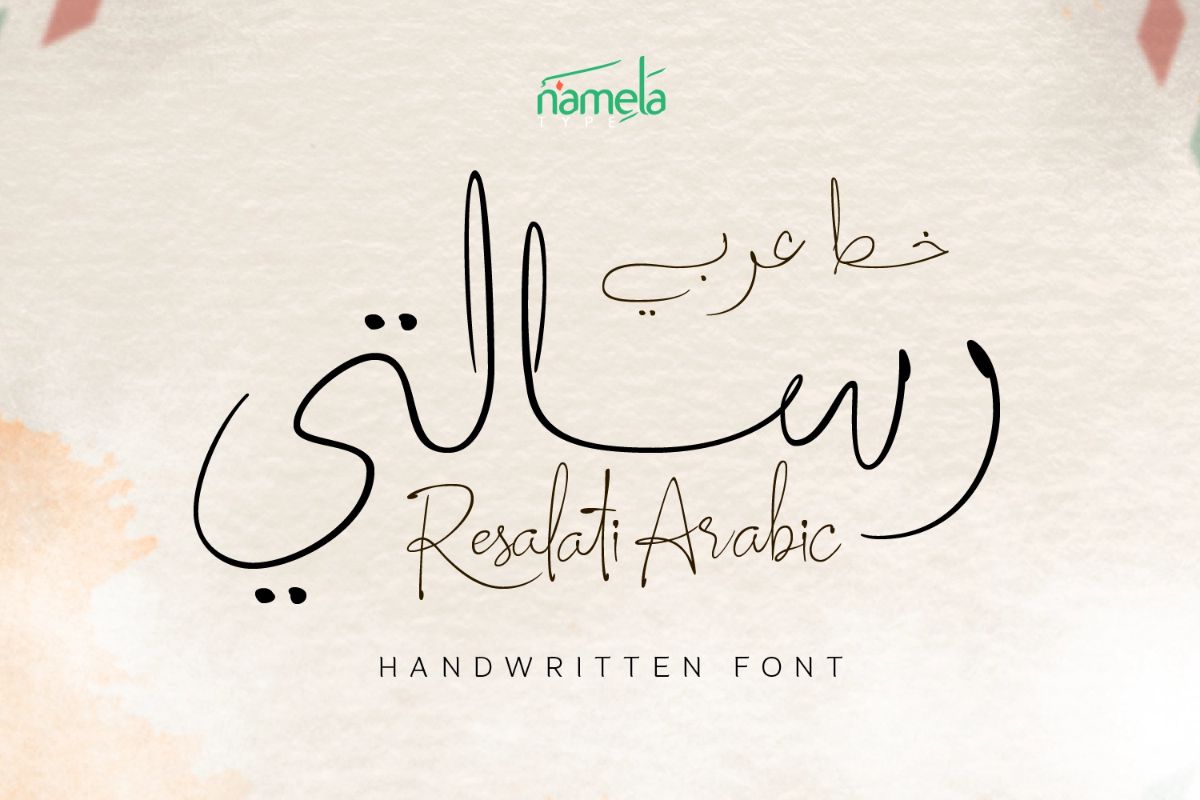
Resalaty Arabic Regular
Resalaty Arabic Font - A Signature Handwritten Arabic Typeface for Elegant & Personal Design Typography has always been one of the most intimate forms of visual communication, and nowhere is that more evident than in the Arabic script tradition. Resalaty Arabic brings that heritage into the modern design landscape with a fresh, signature handwriting approach that feels both personal and effortlessly stylish. Published by Namelatype, Resalaty Arabic Signature Handwritten Arabic Font is positione